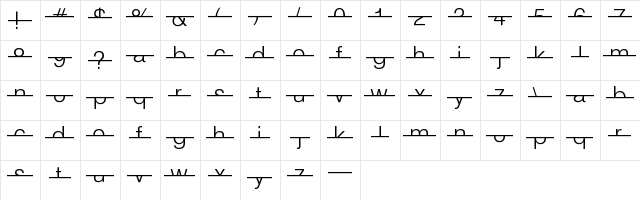
Strike Swiss Regular
| Designer | K.Hachmang |
Design Context for Strike Swiss Typeface
Strike Swiss is a composed and adaptable typeface that performs quietly and consistently across a wide range of design contexts.